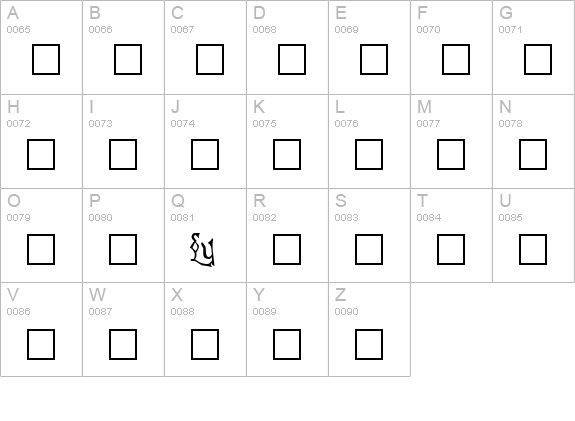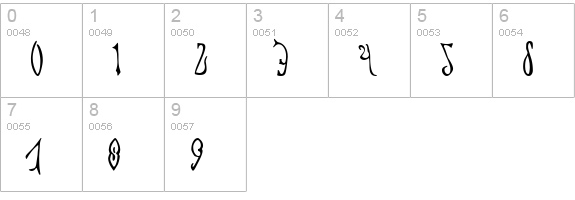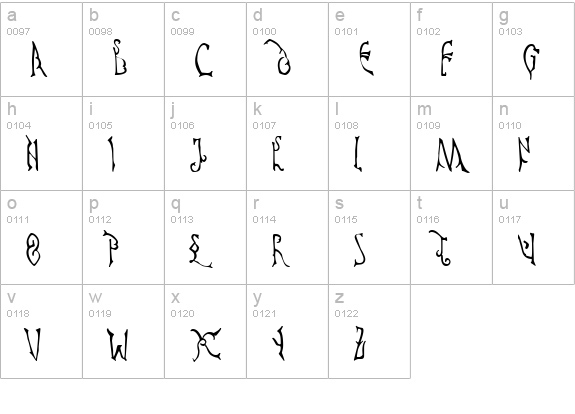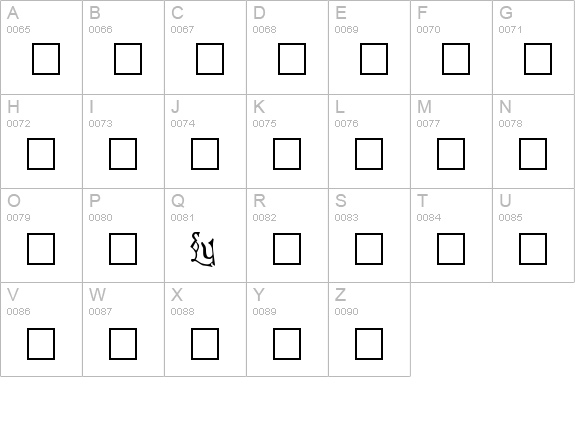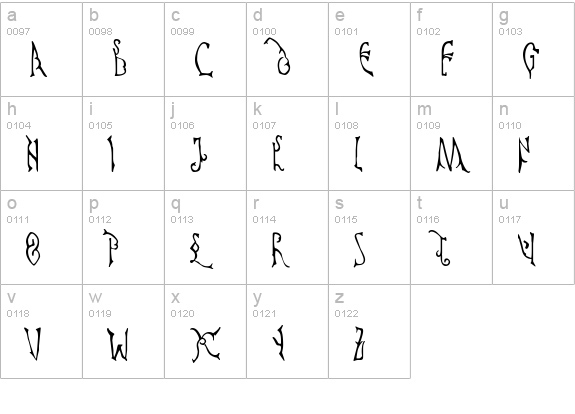
Cyprian font is a stunning and versatile typeface that exudes elegance and sophistication. With its sleek lines and modern design, this font is perfect for a wide range of design projects, from branding to editorial layouts. The clean and crisp letterforms of Cyprian font make it highly readable and visually appealing. What sets Cyprian font apart is that it is available for free download at FontsMarket.com. This means that you can easily access this high-quality font without any cost, making it a valuable addition to your font library. Whether you're a designer looking to elevate your projects or a hobbyist wanting to experiment with typography, Cyprian font offers endless possibilities for creativity and expression. Download Cyprian font today and unlock the potential of your designs!